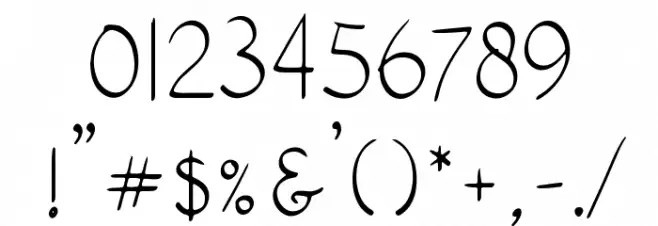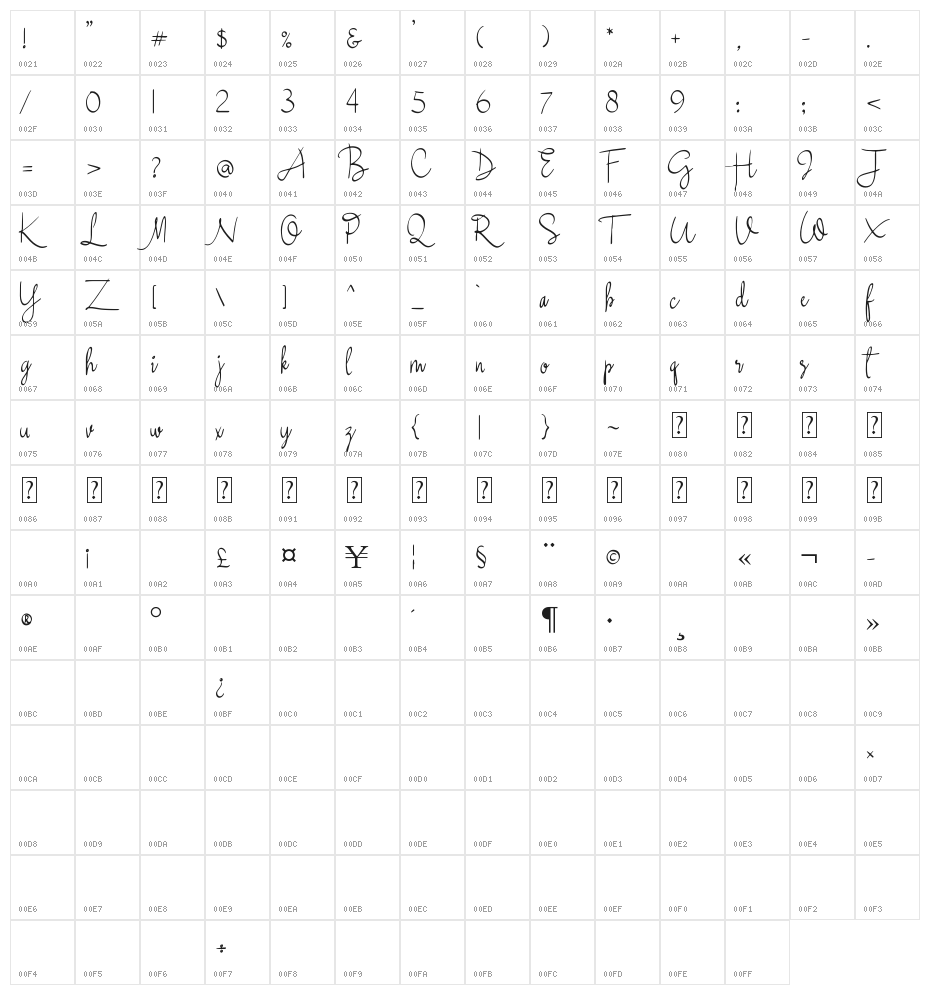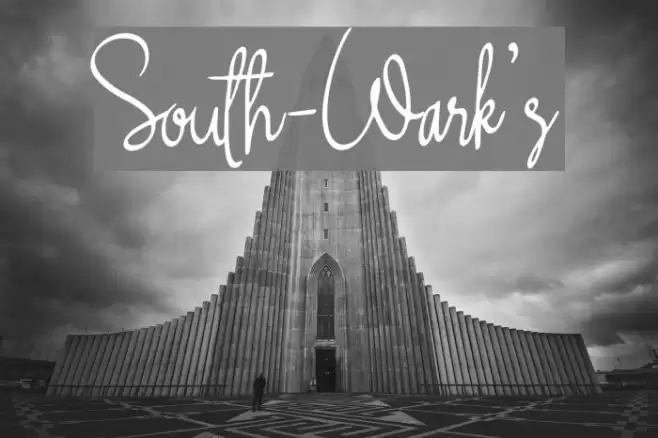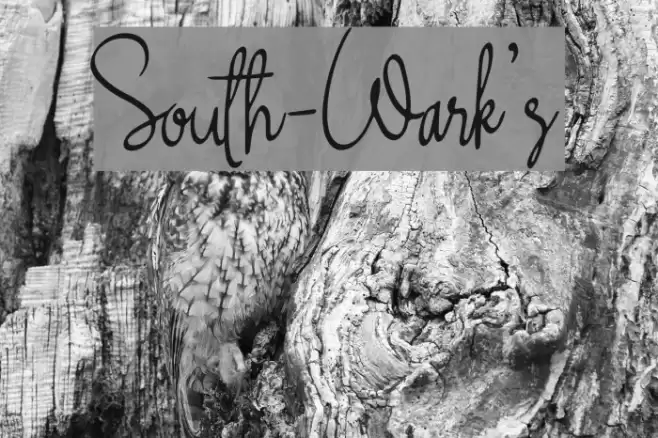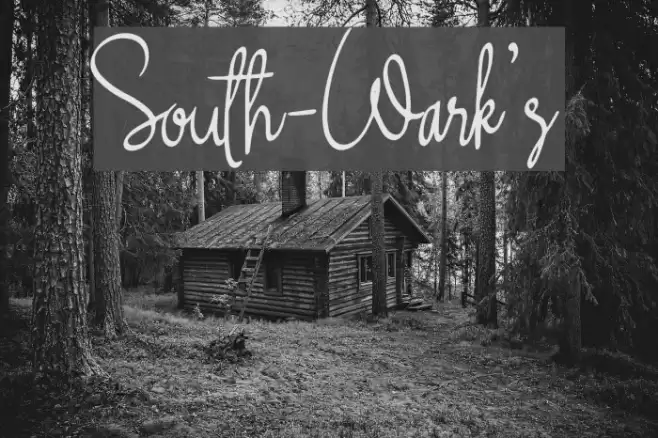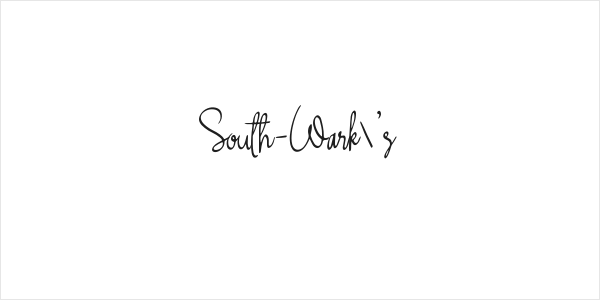
South-Wark's Font
South-Wark's Description
This font features a lively and expressive handwritten style, characterized by its fluid and dynamic strokes. The uppercase letters are tall and elegant, with a slight slant that adds a sense of motion. The lowercase letters maintain a consistent flow, enhancing readability while preserving the font's artistic flair. Numbers and special characters are crafted with the same attention to detail, ensuring a cohesive look across all text. The font's unique personality makes it suitable for creative projects that require a personal touch.
| Proposed Projects | Ideal for invitations, greeting cards, personal branding, and artistic projects. |